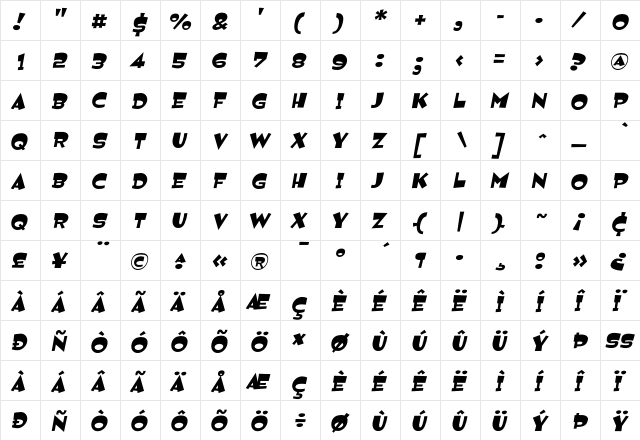
Jemima Italic
Design Context for Jemima Typeface
Jemima offers clean, dependable letterforms without strong stylistic allegiance, making it a practical choice for designers who need flexibility. The dynamic lean of this cut emphasises speed and emphasis in any layout.
Pro Tip: Use Jemima for emphasis, pull quotes, and subheadings where its slanted energy can add rhythm to the layout.